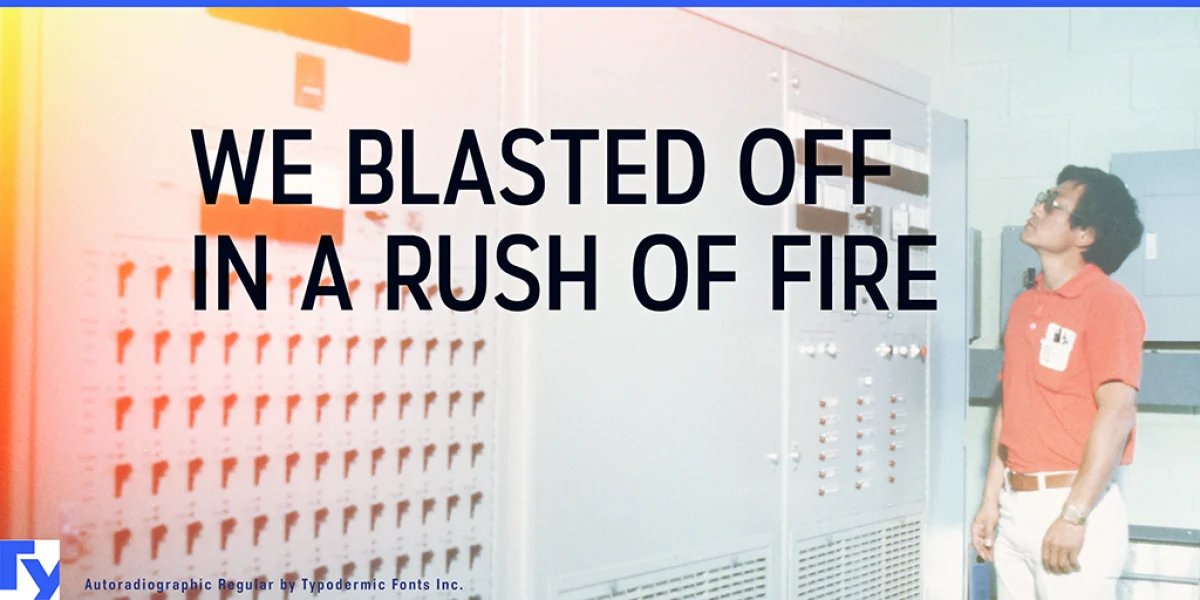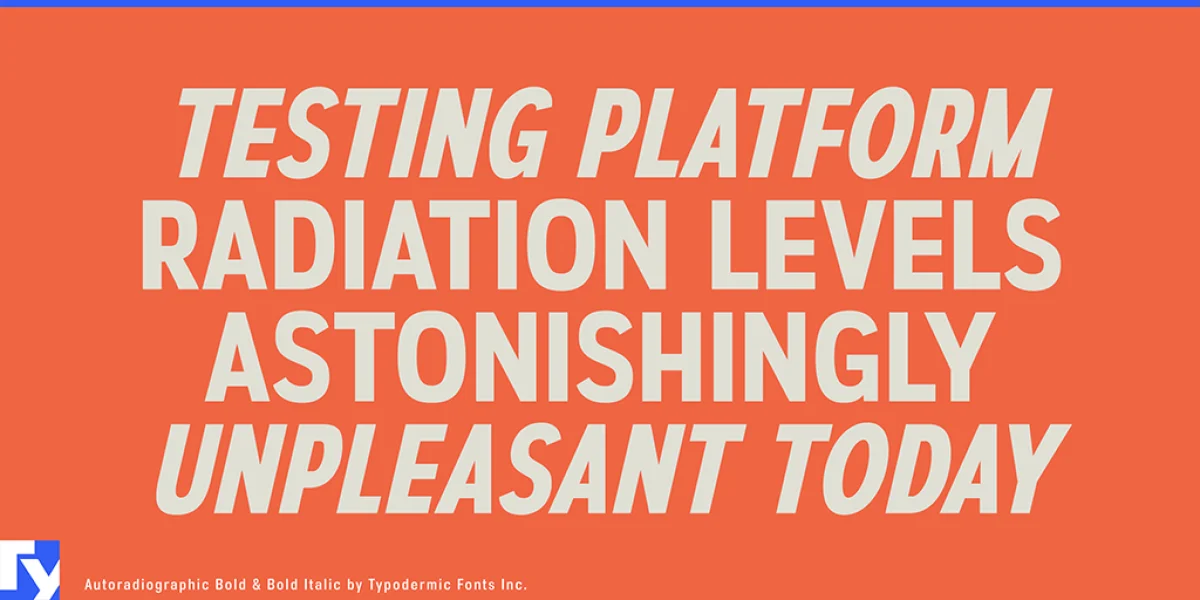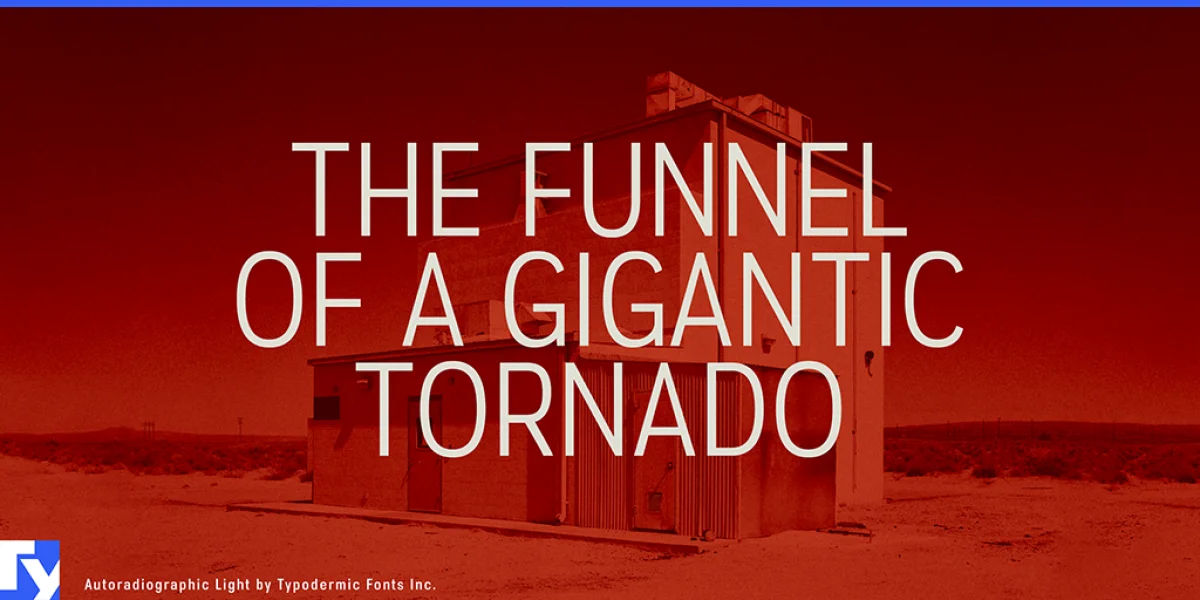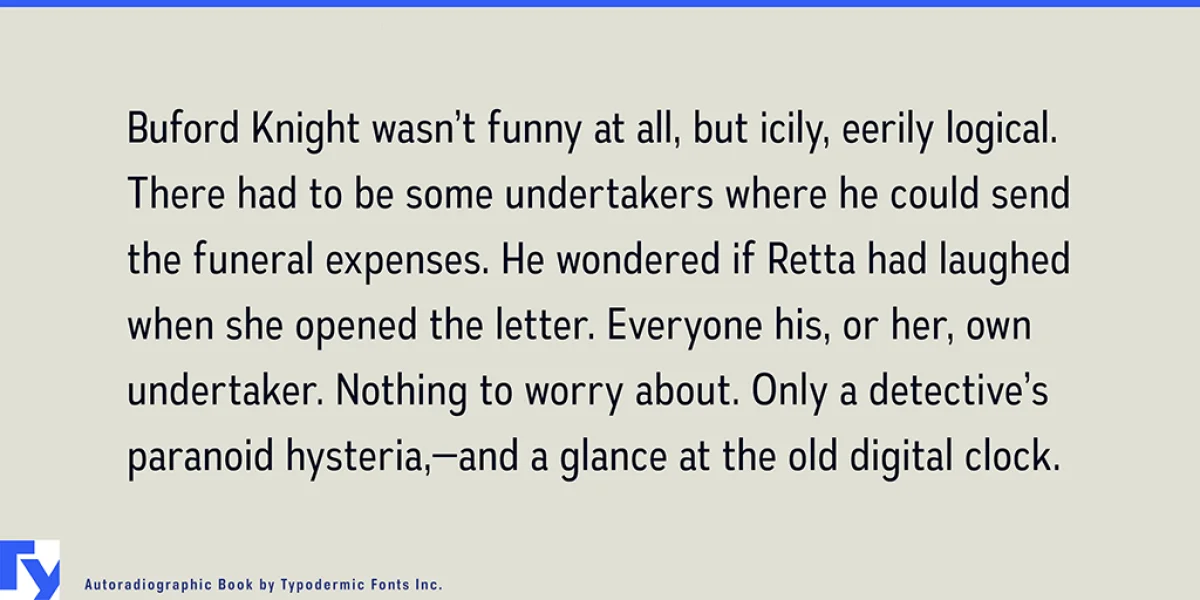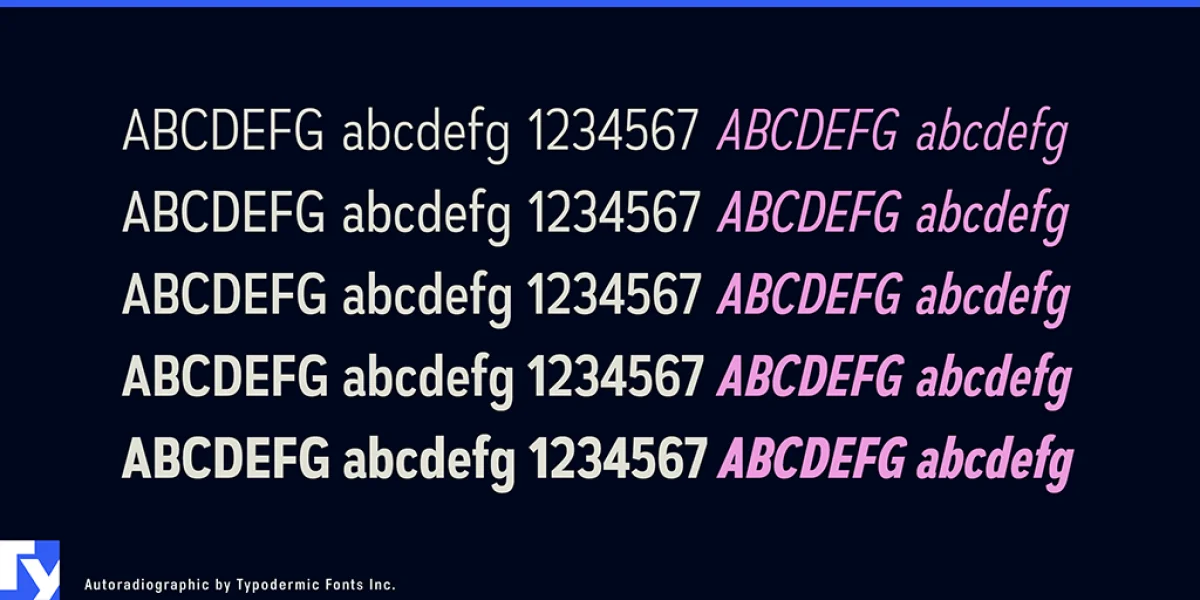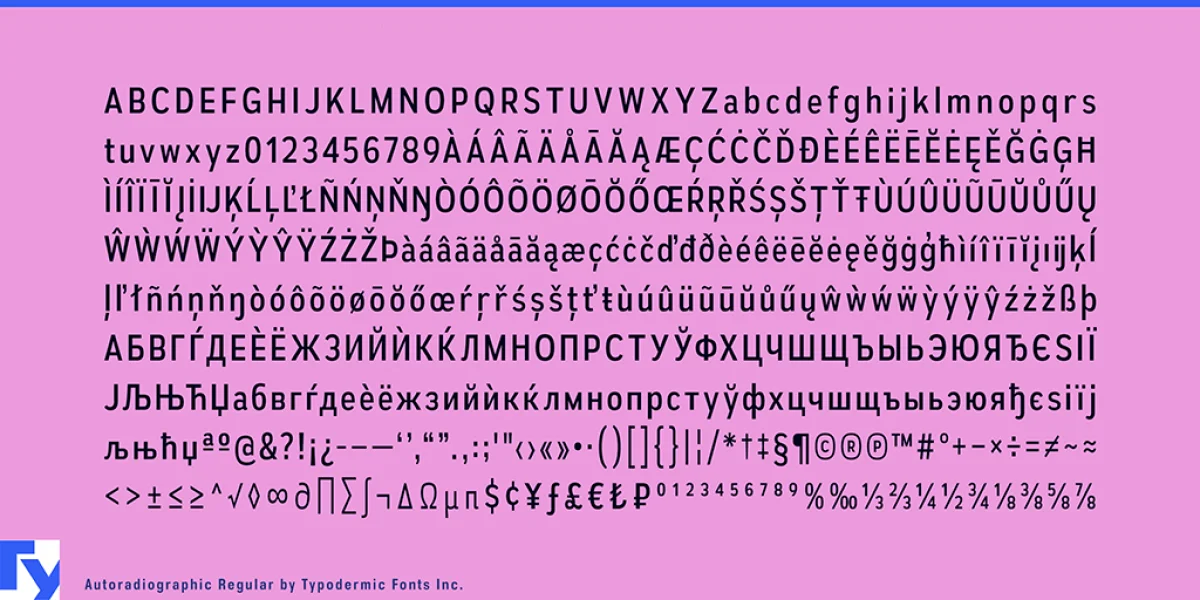
Autoradiographic is a sans-serif typeface in five weights, inspired mid-twentieth century hand-painted warning signs. Inflammable! Keep out! Post-war low waistlines were fashionable in those years, but strict waistline alignment was not. This type of informational lettering was intended to be clean and technical, but some personality shone through. Autoradiographic includes Cyrillic, mathematical symbols, fractions, and the latest currency symbols. Italics are narrow and loosely spaced for extra emphasis. These fonts include a license that allows free commercial use: sometimes referred to as a desktop license. This allows you to install the fonts on a computer and use them to create posters, web graphics, game graphics, t-shirts, videos, signs, logos and more. Read the license agreement for details. If you'd like to embed these fonts in an app, on the web or anything that's not covered by the desktop license agreement, visit the link below. You'll find distributors who offer different types of licenses, or you can contact me for help.